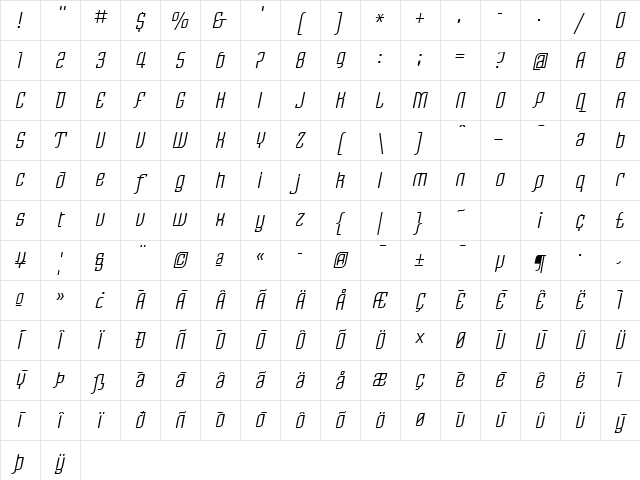
LTRezident One Regular
Design Context for LTRezident One
LTRezident One is a composed and adaptable typeface that performs quietly and consistently across a wide range of design contexts.